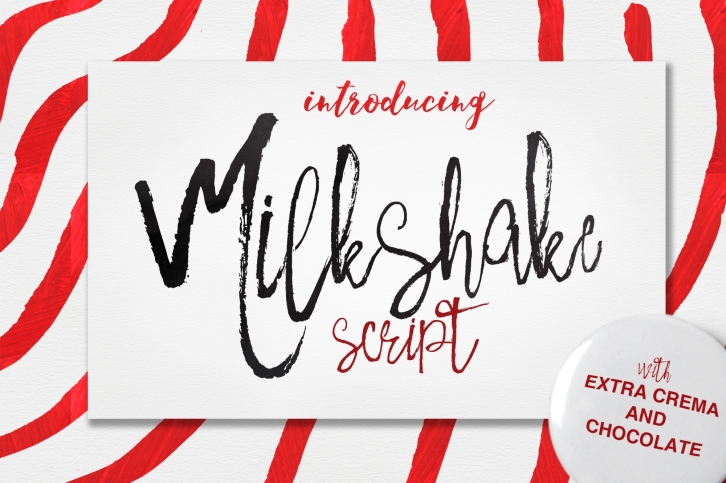
Milkshake and Extras is a beautiful font that was designed by FontArtica. It's a great choice for designers and creatives who need such a font. It was released on September 25, 2016 and the file size is 5.77 MB. Milkshake and Extras may give a more youthful, expressive and casual look to your project. It is a very beautiful, refined, elegant, and high-quality font.